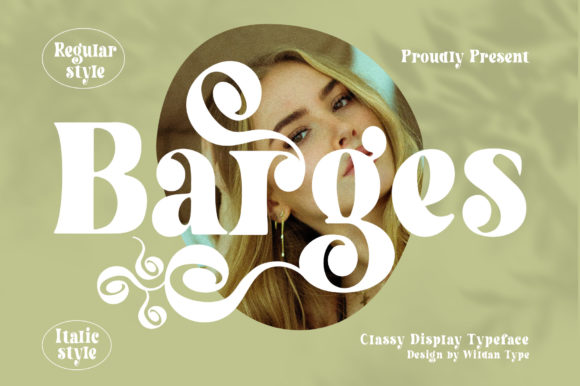
Unleash the allure of digital artistry with Barges, the display font that ignites a symphony of modern luxury and fashion. Its every letter exudes strength and confidence, a perfect blend of power and sophistication. With Barges at your creative fingertips, ordinary words transform into bold statements, captivating your audience with its striking presence.
Indulge in the limitless creative possibilities that Barges unlocks. Design with finesse, elevate your digital projects to new heights, and make a statement that resonates with timeless elegance. Picture your designs adorned with Barges' graceful curves, its characters dancing across the screen with an unmatched charm. Its visual elegance will leave an indelible mark on all who encounter your creations, leaving them in awe of your artistic brilliance.
Immerse yourself in the world of Barges, and discover a font that is more than just a collection of letters. It's an artistic masterpiece, a conduit for expressing your unique vision. With Barges, you'll craft digital masterpieces that transcend the ordinary, leaving an unforgettable impression on all who behold them. Prepare to be mesmerized by its captivating presence, as Barges transforms your designs into works of art.